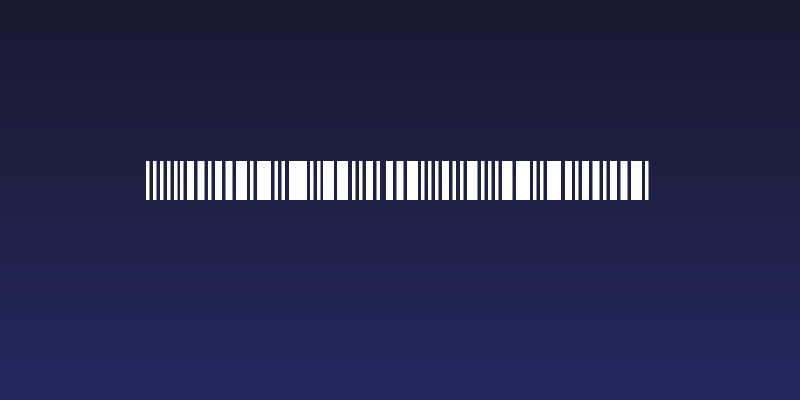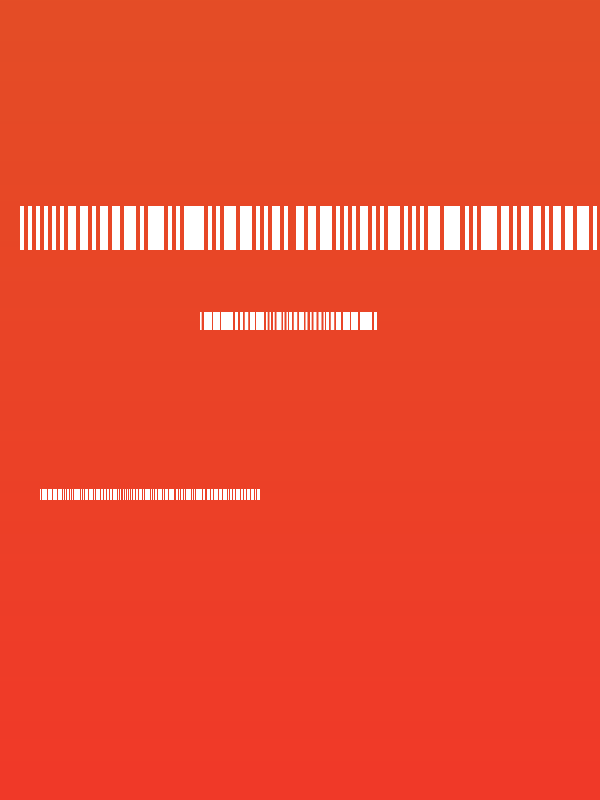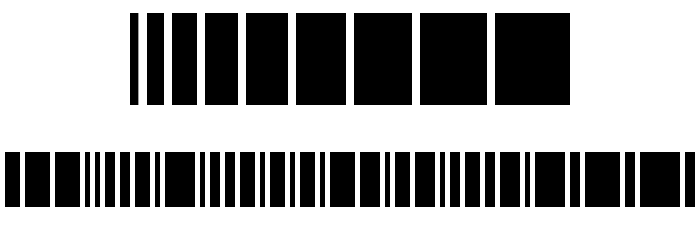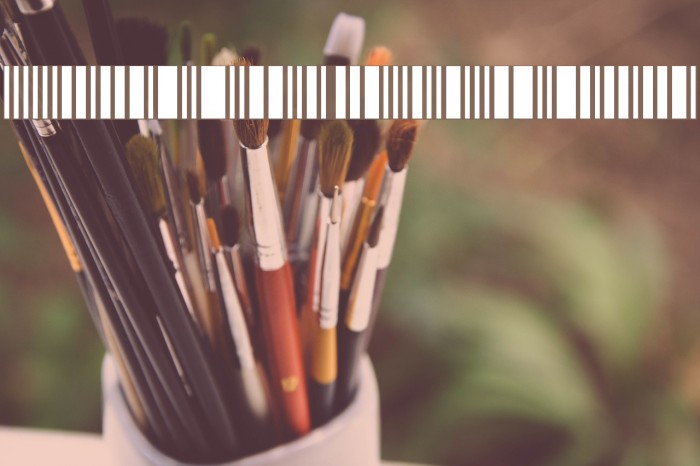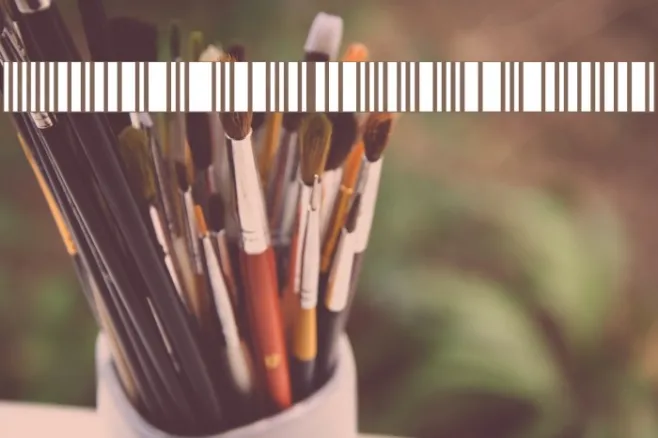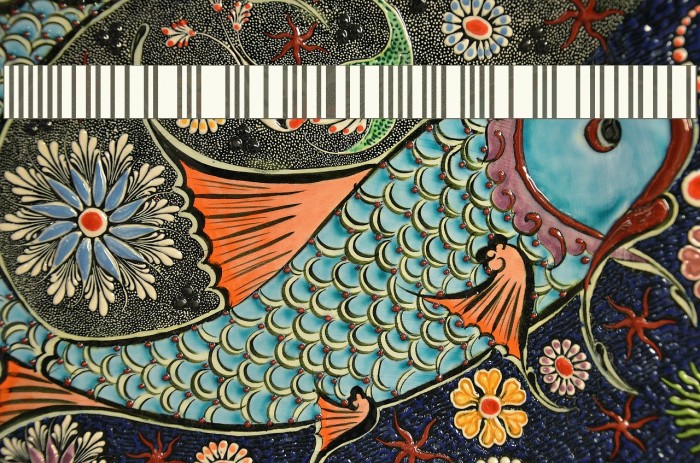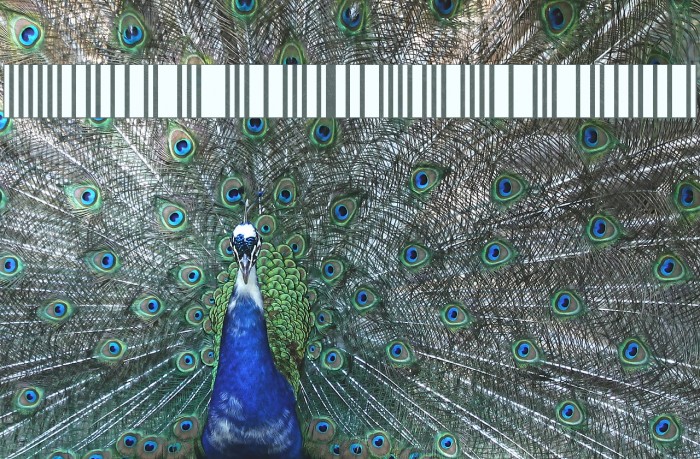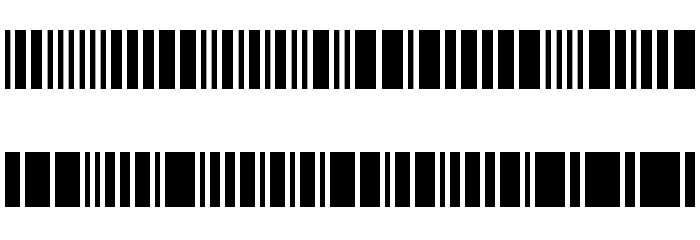
barkode Regular Font
barkode Regular Description
This font is a unique and creative design that mimics the appearance of a barcode. Each character is represented by a series of vertical lines of varying thickness, creating a visually striking and unconventional look. The font is highly stylized, with a modern and futuristic feel, making it ideal for projects that require a bold and distinctive aesthetic. The characters are evenly spaced, maintaining a consistent pattern throughout the typeface. This design is particularly suitable for artistic and experimental projects, where a traditional font would not suffice.
| Proposed Projects | Ideal for artistic projects, experimental designs, branding, and any creative work that requires a bold, unconventional typeface. |